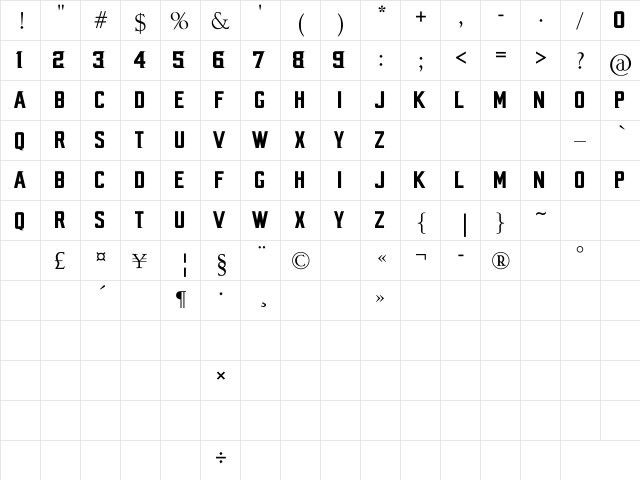
NFL Vikings 2013 Left Regular
Design Context for NFL Vikings 2013 Left Typeface
NFL Vikings 2013 Left takes a measured approach to typography — its balanced proportions and neutral character make it a reliable workhorse for both digital and print work.